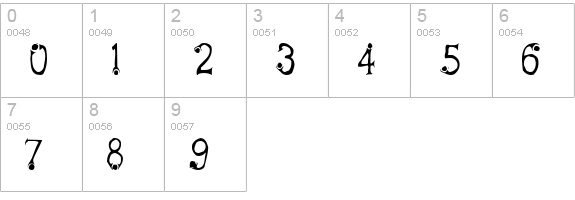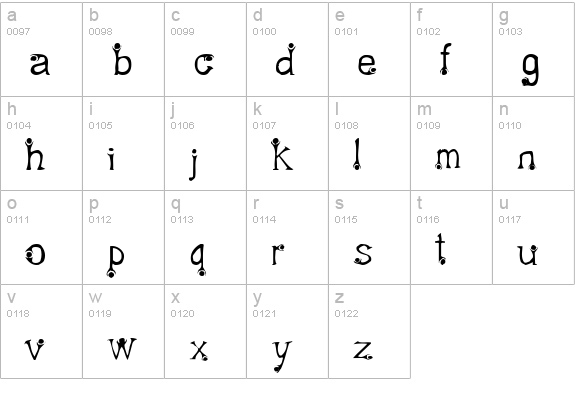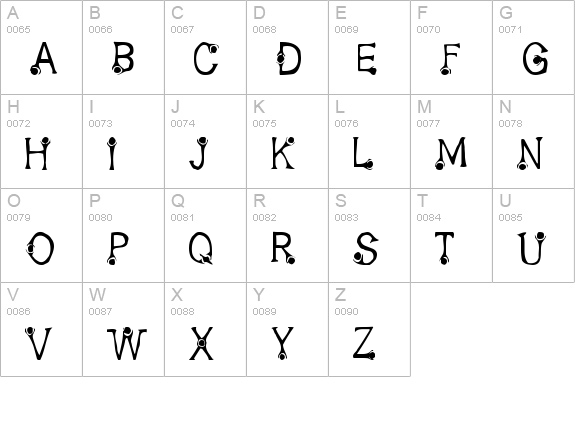
Feta Font Details
Feta font is a modern and stylish typeface that exudes elegance and sophistication. Its sleek lines and contemporary design make it perfect for a wide range of projects, from branding to editorial design. The clean and versatile appearance of Feta font makes it suitable for both print and digital applications. One of the best things about Feta font is that it is available for free download at FontsMarket.com. This means that you can easily access this high-quality font without any cost, making it a valuable addition to your font collection. With its timeless appeal and effortless readability, Feta font is sure to elevate any design project to the next level. Whether you are working on a branding project, creating social media graphics, or designing a website, Feta font is a versatile and stylish choice that will help you achieve a polished and professional look. Download Feta font for free today and add a touch of sophistication to your design projects.